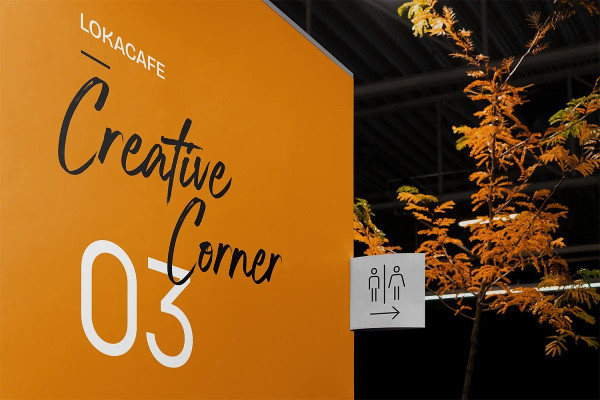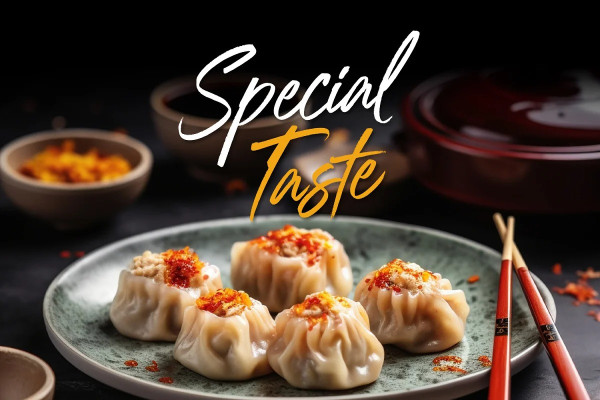
Standbyte Brush Font is an exquisite script font that beautifully captures the essence of cursive handwriting with delicate brush details. This typeface combines the fluidity of handwritten script with the artistic touch of brush strokes, resulting in a captivating and elegant design.
Standbyte’s flowing letterforms emulate the natural movement of cursive handwriting, giving it a sense of authenticity and warmth. The brush details add a touch of artistic flair, creating subtle variations in stroke width that infuse the font with a handcrafted charm.
Its flowing, interconnected letters lend themselves well to creating seamless and eye-catching appearance. Because of its legibility you can use this font in a variation of text sizes. Enjoy the available features here.